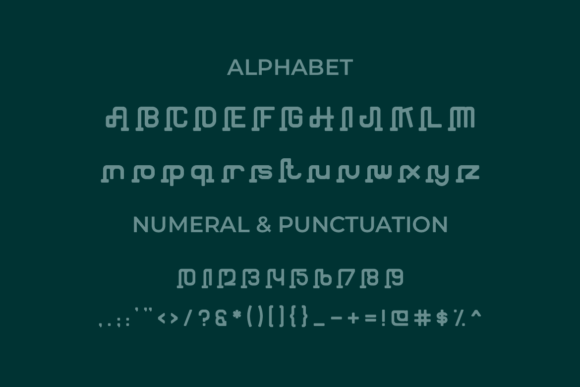
Benther Font: The Ultimate Display Font for Stunning Designs
Are you tired of using the same old fonts for your designs? Look no further than Benther Font, a cool and uniquely shaped display font that’s sure to capture attention. With its incredible style and versatility, Benther Font is the perfect choice for designers and crafters looking to create stunning, original designs.
What Makes Benther Font So Special?
Benther Font is a one-of-a-kind display font that’s designed to make a statement. Its unique shape and style set it apart from other fonts, making it perfect for adding a touch of personality to your designs. Whether you’re working on a logo, poster, or social media graphic, Benther Font is sure to turn heads.
Key Features of Benther Font
- Unique Shape: Benther Font has a distinctive, curved shape that’s unlike any other font out there.
- Display Font: Benther Font is specifically designed as a display font, making it perfect for headlines, titles, and other attention-grabbing elements.
- Cool and Modern: Benther Font has a cool, modern vibe that’s perfect for designs that need to feel fresh and contemporary.
- Highly Versatile: Benther Font can be used for a wide range of design projects, from logos and posters to social media graphics and more.
- Pair it with a Simple Font: Benther Font is a statement font, so it’s best paired with a simpler font for body text.
- Experiment with Colors: Benther Font looks great in a variety of colors, so don’t be afraid to experiment and find the perfect hue for your design.
- Play with Size: Benther Font can be used at a variety of sizes, from large headlines to smaller text elements.
- Adds Personality: Benther Font adds a touch of personality to your designs, making them stand out from the crowd.
- Increases Engagement: The unique shape and style of Benther Font are sure to grab attention and increase engagement.
- Versatile: Benther Font can be used for a wide range of design projects, making it a great addition to your font library.
Benther Font is a cool, uniquely shaped display font that’s perfect for designers and crafters looking to add a touch of personality to their designs. With its incredible style and versatility, Benther Font is sure to become a go-to font in your design arsenal. So why wait? Fall in love with Benther Font and start creating stunning, original designs today!